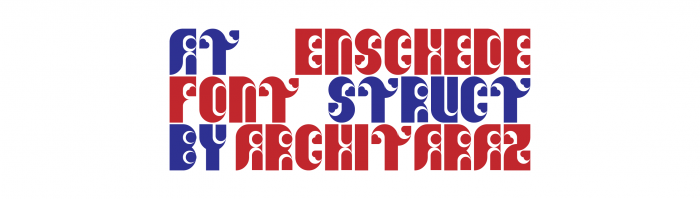
This might look familiar but it's different ). Unplanned 3rd entry. Dedicated to a Dutch city Enschede where I'm spending last hours of yet another family visit.
It has a certain touch of the 70s and suits the impression I get of Enschede when I drive through it :)